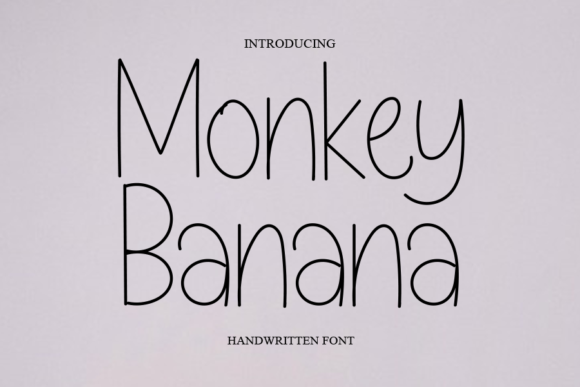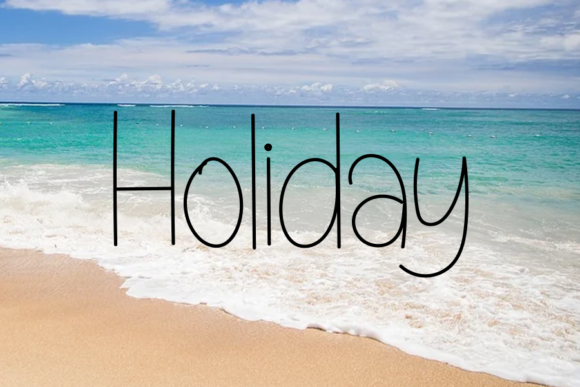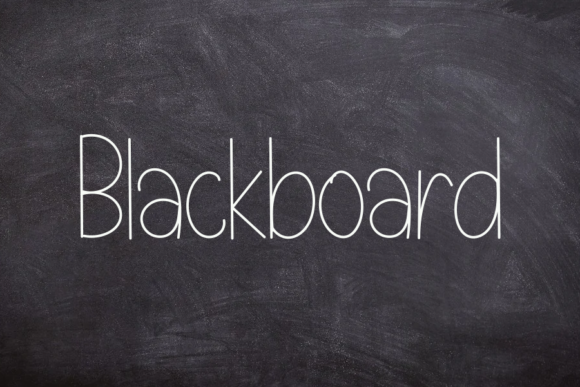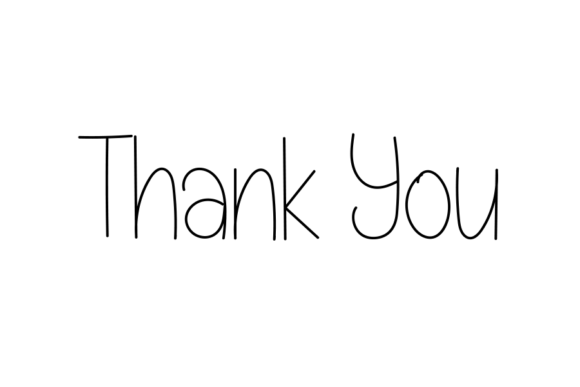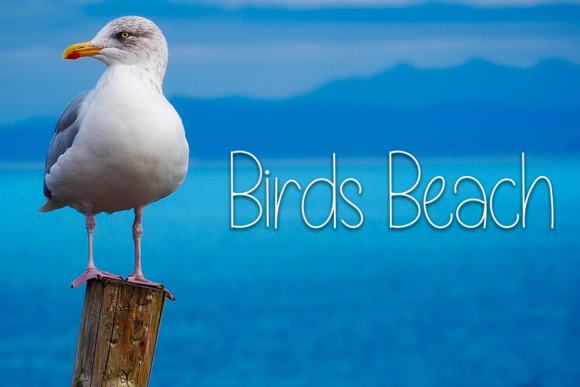
Monkey Banana Font
About Monkey Banana Font
Monkey Banana is a simple and adaptable script font. Add this cute looking font to each of your love letters, wedding invitations or favorite design ideas, and you will be astounded by the outcome.